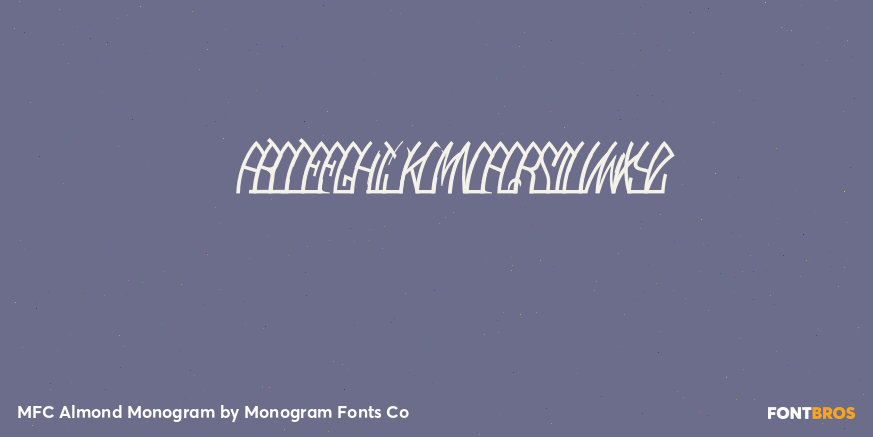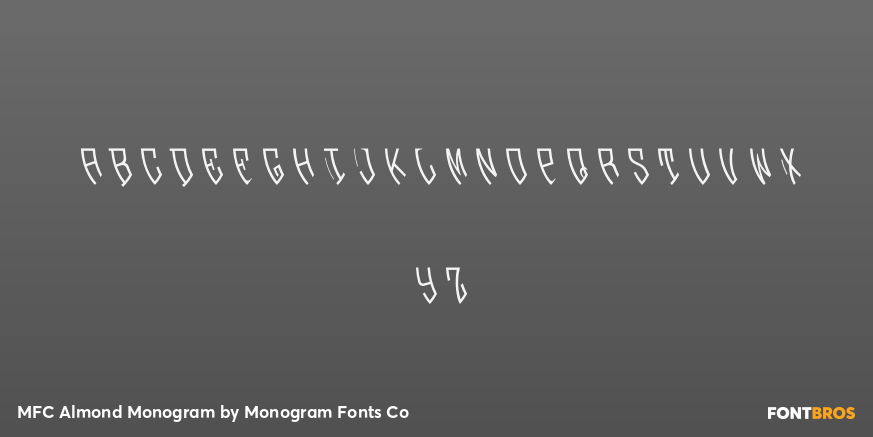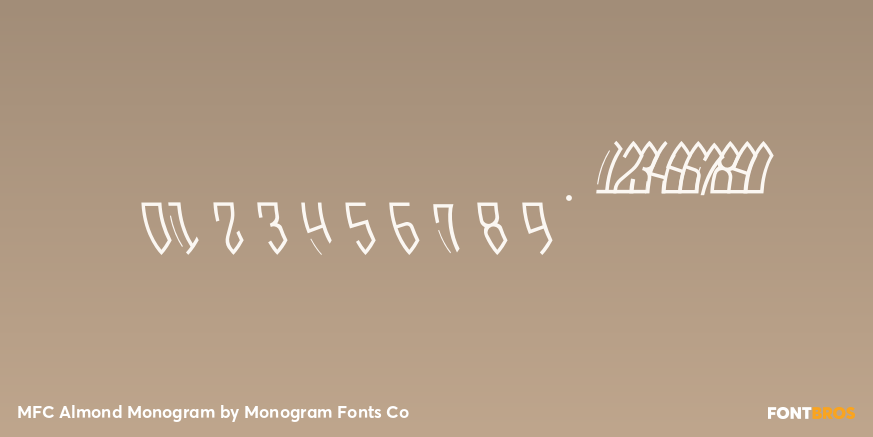
MFC Almond Monogram
Font Family by Monogram Fonts Co
The inspiration source for Almond Monogram is a highly unusual warped letterset from a vintage embroidery publication combining to create an almond form monogram. Originally intended to adorn handkerchiefs, it has many other possibilities. Numbers and letters can be combined to create one side of the monogram, while the other side is completed by ornament glyphs under the comma, period, braceleft, braceright, bracketleft and bracketright characters. This is one of many monogram designs from the early 1900's which fall into a two letter format that is either adorned or interwoven with ornamentation.